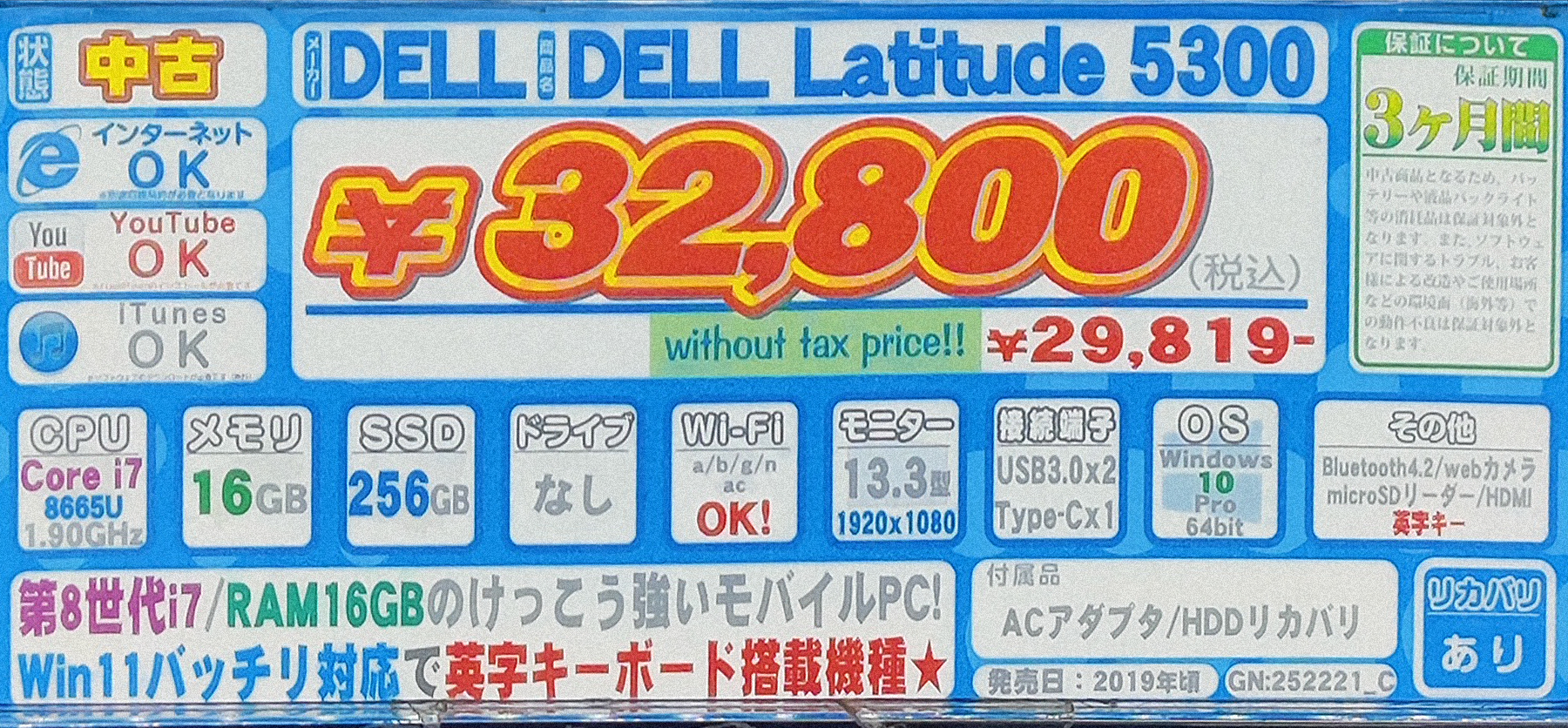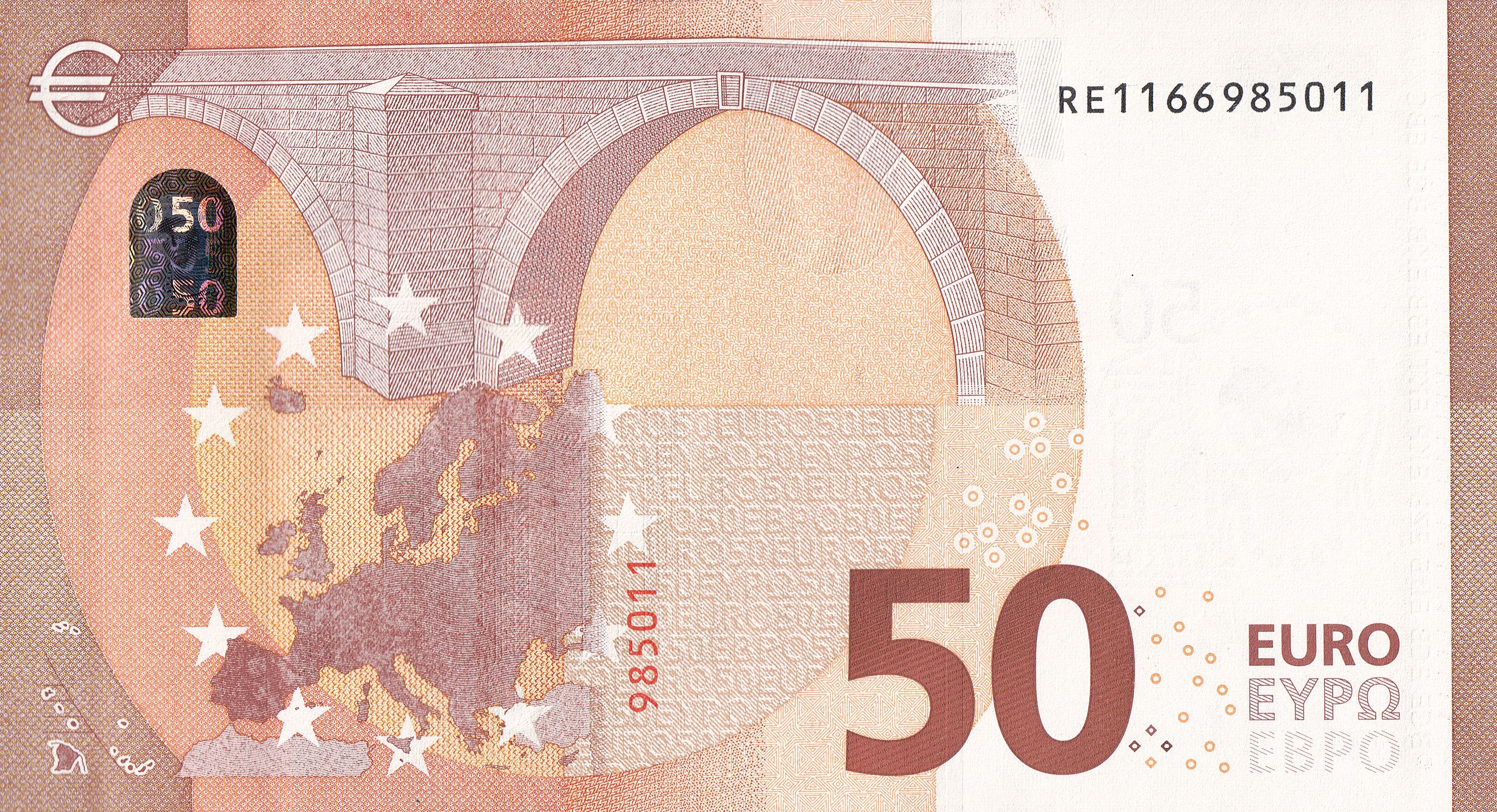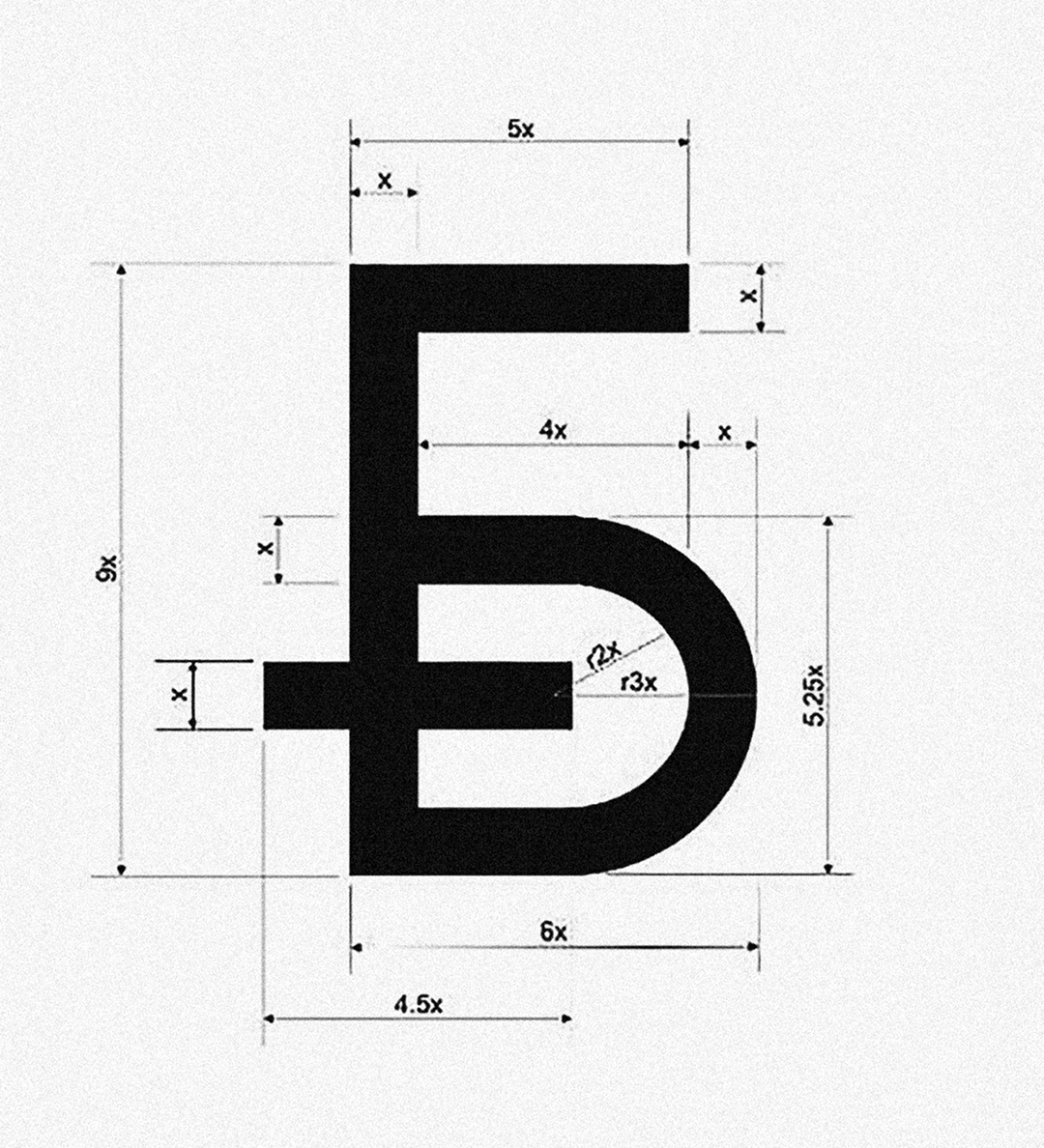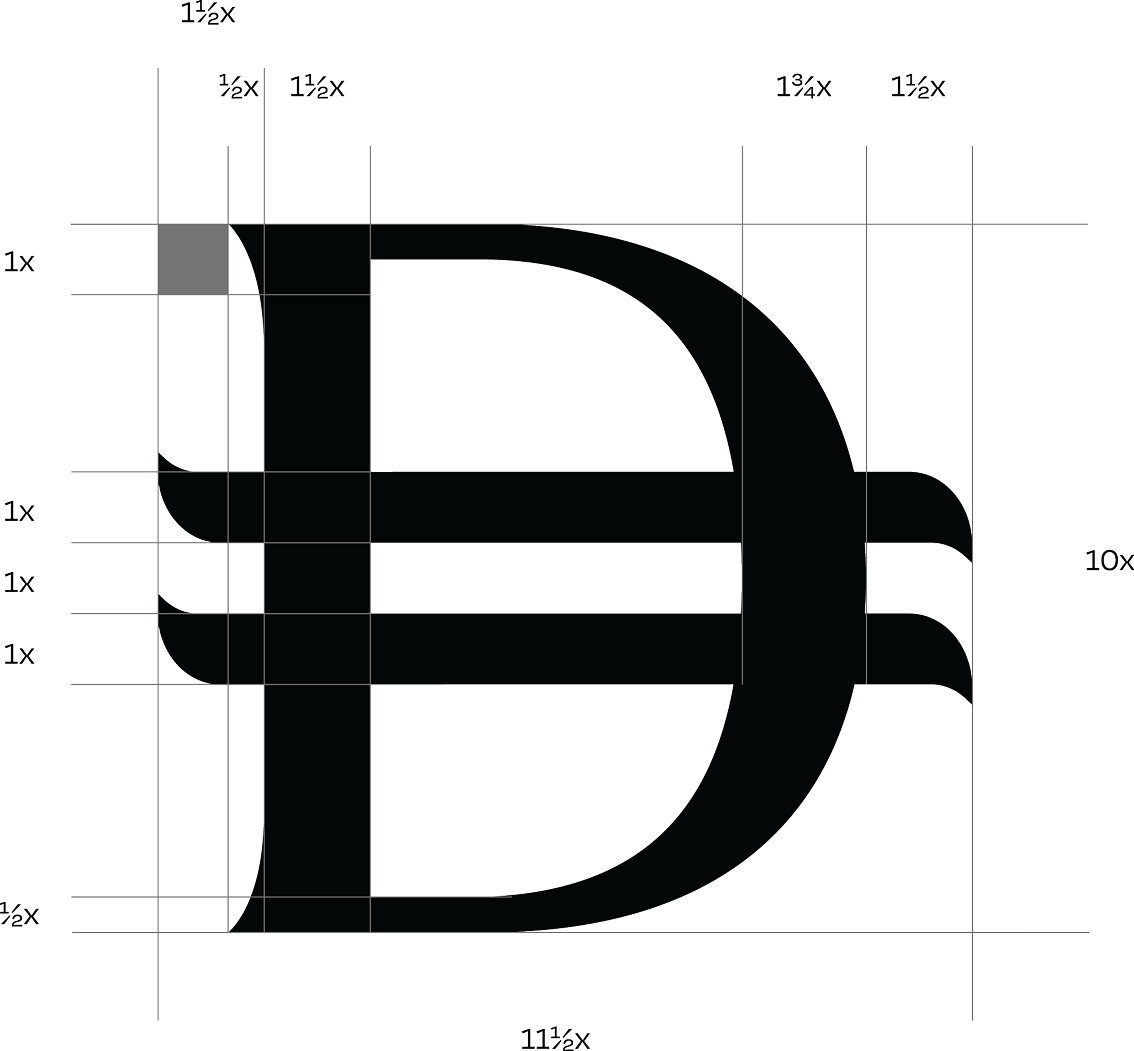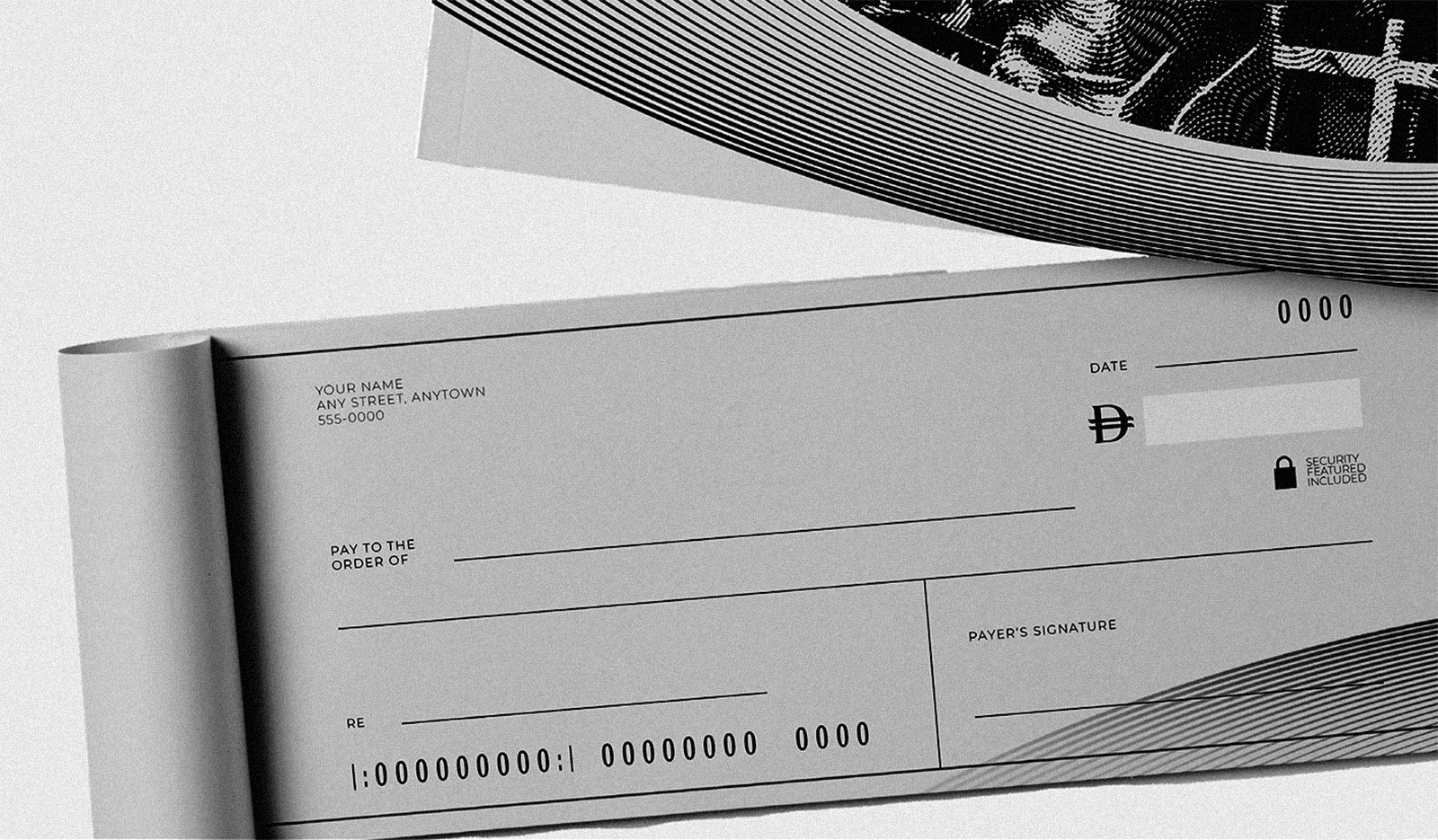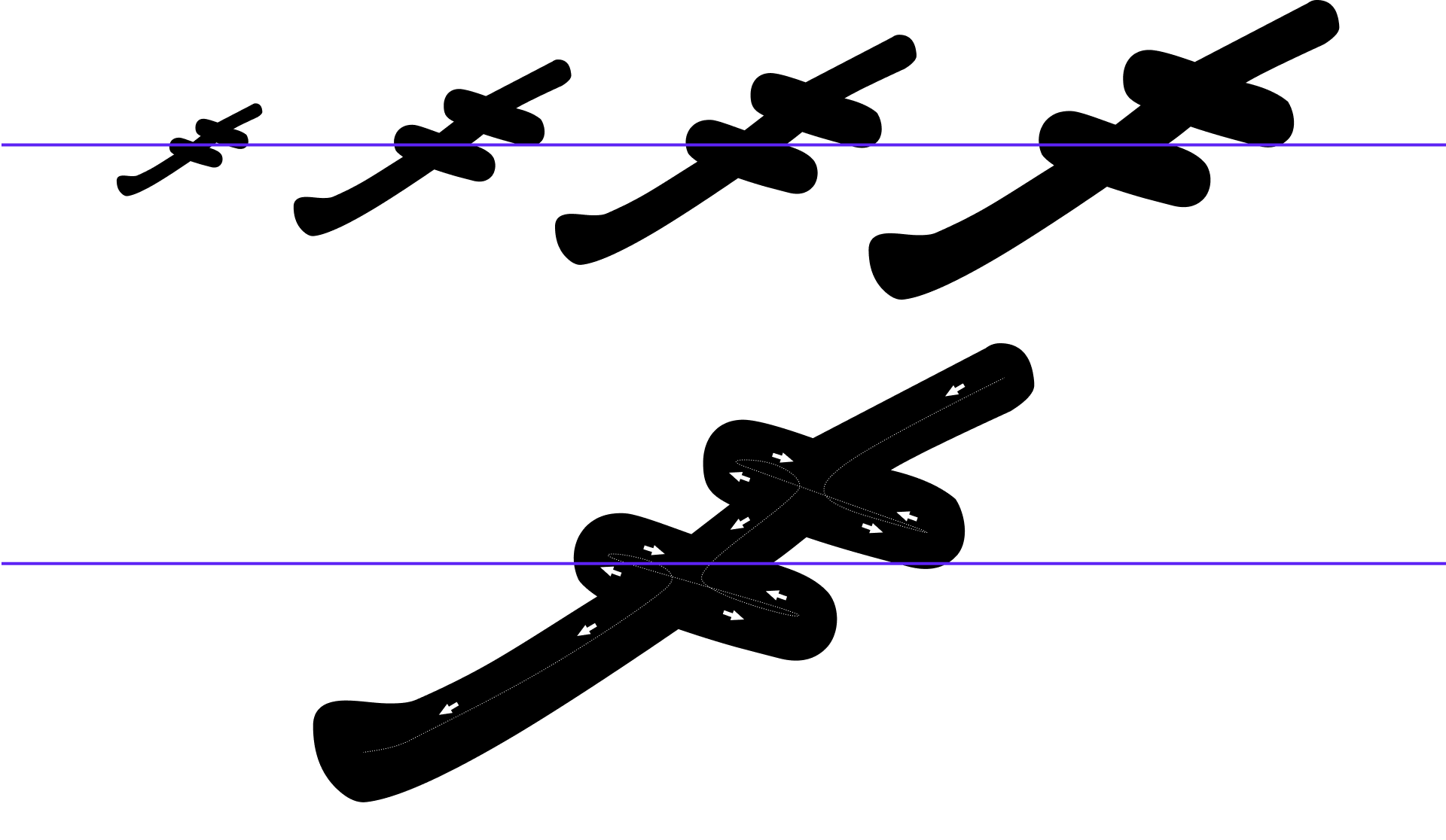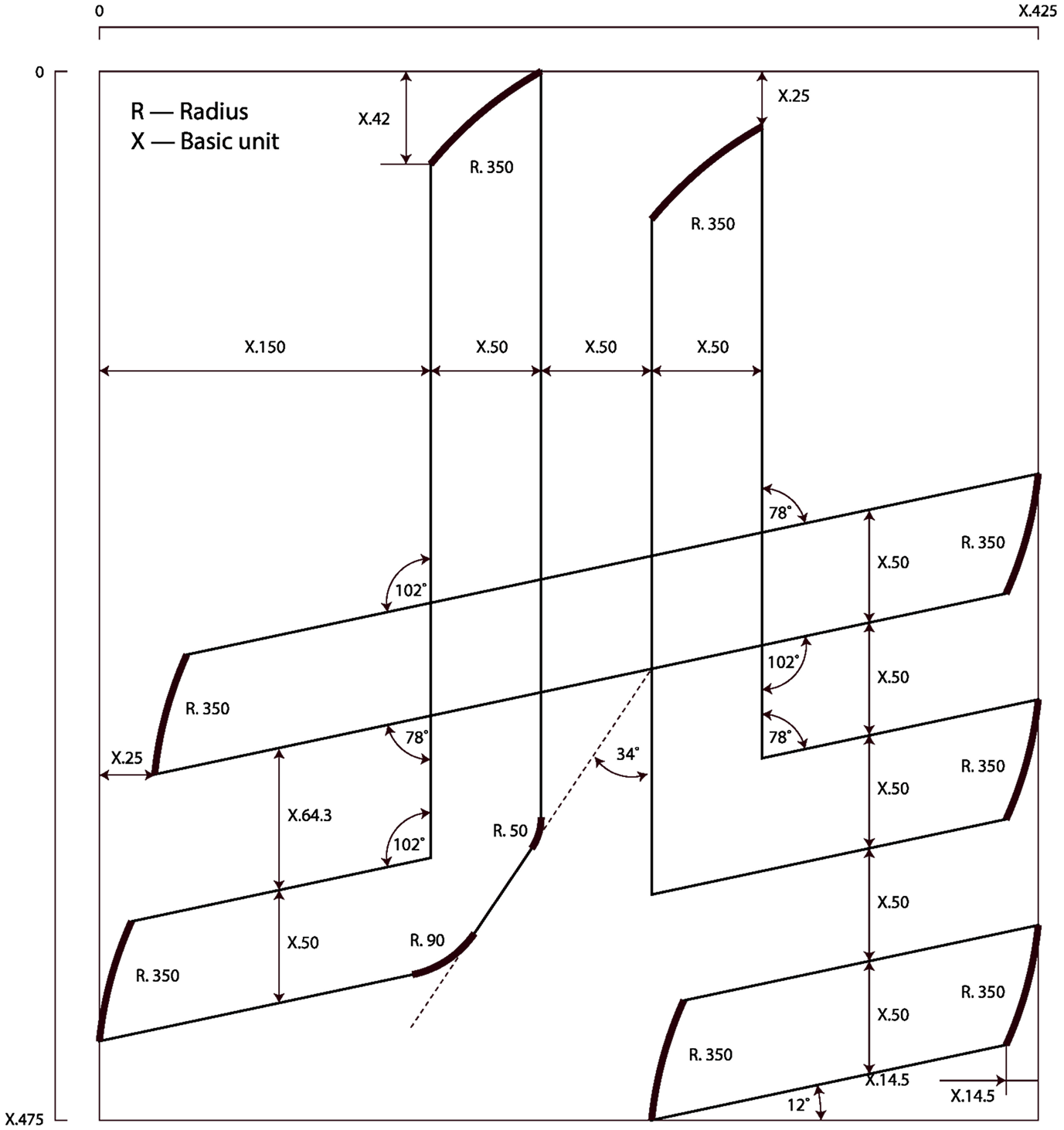
Manual: Currency Symbols
Should the dollar sign be placed before or after the number? What about the Armenian dram? And Bitcoin?
General rules
The currency of each country has an internationally accepted abbreviation (ISO), an alphabetic code that most often indicates the country it’s being used in and the name of the currency itself. However, not all currencies are represented by a special symbol.
Abbreviations are mainly used in financial documents, instruments, or language switches — most often to avoid confusion in cases where currencies from different countries have the same name (for example, Canadian and Hong Kong dollars). In such tools and interfaces, abbreviations are most often placed after the number.
1 Crypto wallet interface. Design: Niqoxh
You can’t combine the amount with an abbreviation from the international measurement system — for instance, it is not advisable to replace the three last zeroes with the letter k indicating a thousand or the six lax zeroes with the letter M, which stands for the million. If you intend to discard the zeros, you should write out the words ‘thousand’, ‘million’, and ‘billion’ as well as the currency’s name.
According to the current convention, amounts of money — in news stories, scientific papers, and fiction — are to be written with figures rather than written out.
3 Cover of the first edition of the 99 Francs book, 2000. Design: Studio des Éditions Grasset
It is appropriate to use well-known abbreviations for internationally recognised and used currencies ($ for the dollar, € for the euro) in financial and economic publications as well as other kinds of specialised literature that implies financial calculations. Arkady Milchin, Lyudmila Cheltzova Publisher and Author’s Handbook
Currency symbols typically go together with the lining (uppercase) figures by default. Tabular currency symbols are also often included in a font for them to be used, say, in interfaces of online stores. Lowercase currency signs or small caps currency signs are less likely to be seen in a font, but that also happens, and the font rarely contains currency symbols that can be combined with superscripts. If there is no such set of currency signs in a font you chose, you should not deliberately reduce the lining symbols in size using the superscript button in graphic editor software as it will make them look considerably lighter than the figures.
Fonts with tabular figures should have monetary symbols that are tabular so when they are used for monetary amounts in columns or spreadsheets the data will align. Microsoft Learn «Character Design Standards»
5 Fragment of the «The Colophon» magazine issues index page, 1935
¥ $ £ have fullwidth characters in Unicode. Today those are used in texts set in CJK languages with square-shaped hieroglyphs. However, the need for those characters came about in the late 1960s — the symbols were necessary for coding in CJK languages on computers that had just arrived. In early encodings, the symbols by default took up two bytes, while Latin characters took up one byte. For the proper text display, wider variations of Latin characters and currency symbols were needed.
6 Command line in Windows XP with Korean localisation. Image: Wikipedia
Currency symbols are found in various Unicode sections. Most of them — for example, €, ₸ ₴ ₾ ₼ ₿ — sit in the special Currency Symbols block. That said, the dollar sign is encoded in the Basic Latin block, the florin sign — in Extended Latin, the cent sign and the pound sign — in Latin-1 Supplement. The Armenian dram sign is available in the same section that contains characters for writing the Armenian language and therefore is rarely found in fonts that don’t support it.
The Underware studio suggests including six following currency symbols in a font that supports extended Latin: $ (dollar, peso), £ (pound sterling), € (euro), f (florin), ¥ (yen), ¢ (cent). In this piece, we will address these symbols and some other currency signs available in the typefaces from our library.
Currency sign
The Unicode contains a generic currency sign used to denote an unspecified currency, ¤ (U+00A4). It was introduced to be used when a currency has no graphic representation at all or when this symbol is not available in a particular font.
This character is a legacy throwback to various kinds of more-or-less manual typesetting in which it was fairly common for fonts not to include a wide variety of currency symbols, so this symbol would be inserted as a placeholder during typesetting, and then later replaced with the appropriate currency symbol sources from another font or from a special set of currency sorts. John Hudson TypeDrawers
Yen and Yuan symbol
(English keyboard layout)
58 Price tag from Asakura book store, 1920s. Image: Seven Roads
59 Yakiniku restaurant menu. Image: Japan Journeys
61 Price tag in a computer store in Tokyo, 2024
60 Chinese stamp, 1963. Image: Meshok